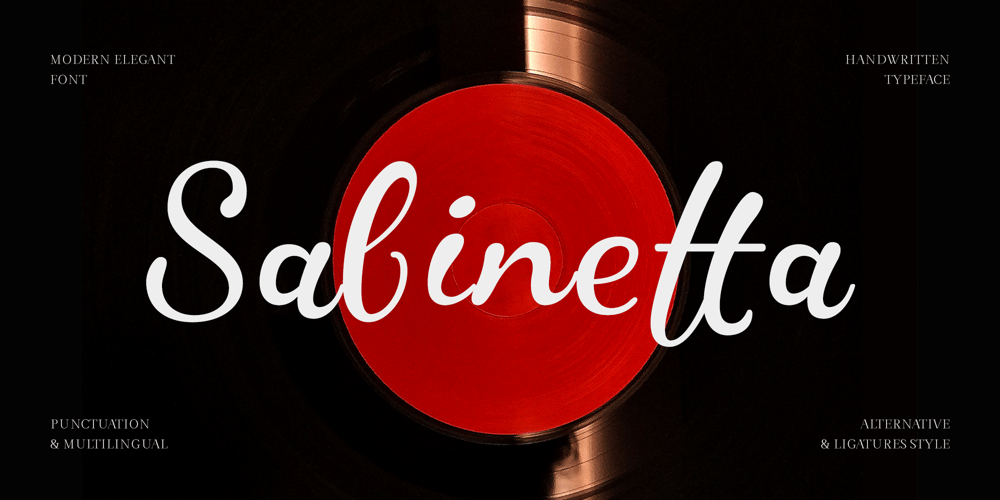
Sabinetta Font Family was designed by Dede Kurniawan and published by Creatifont Studio. Sabinetta contains 1 styles and family package options. Sabinetta is a captivating handwritten font that effortlessly blends classic elegance with contemporary flair. Its distinctive combination of fluid, dynamic strokes and an irregular baseline creates a sense of natural movement and personality. This unique blend of characteristics makes Sabinetta a versatile choice for a wide range of design projects, from inviting wedding invitations to eye-catching social media graphics.A SUMMARY OF WHAT’S INCLUDED: Standard Character A-Z, a-z, 0-9, Punctuation & symbols Regular Stylish Multilingual Support Rich of Alternate and Ligature Works on PC & Mac Simple installation Accessible in Adobe Creative Suite (Ai, Ps, Id, etc.) even work on Microsoft Word. PUA Encoded Characters – Fully accessible without additional design software. ——————————————–🌟If you come across any issues or notice anything we might have overlooked while using this product, please feel free to reach out to us. We greatly value your feedback as it helps us enhance and refine our products. Thank you!